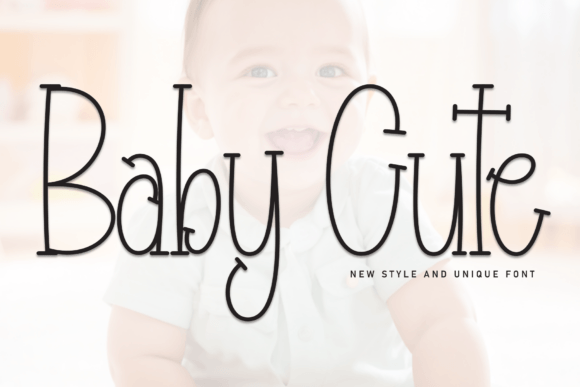
Meet the Font that Captivates Hearts: Baby Cute Font
Remember the first time you stumbled upon the perfect font for a design project? The excitement, the thrill, and the sense of accomplishment? It’s a moment that designers cherish, and we’re about to make it happen all over again with the introduction of Baby Cute Font.
This delightful handwritten display font is a masterful blend of cute and fun, perfect for adding a jubilant touch to your designs. Whether it’s a wedding invitation, a heartfelt card, or any other project that requires a playful twist, Baby Cute Font is sure to bring a smile to your audience’s faces. As a designer, you’ll appreciate the versatility and charm of this font, making it a valuable addition to your toolkit.
Get ready to unleash the creative potential of Baby Cute Font and take your designs to the next level!
Baby Cute Font Key Features
- Character Set: 200+ glyphs, including Latin, Cyrillic, and Greek alphabets, as well as various symbols and icons
- Unique Characteristics: Delicate, cursive lines and rounded shapes create a soft, endearing appearance, perfect for baby-related designs and branding
Designer Review: Baby Cute Font
First impressions matter, and Baby Cute Font is no exception. I was immediately drawn to its playful and whimsical style ✨. The font’s rounded edges and cursive flair make it perfect for projects that require a touch of innocence and charm. It’s ideal for branding, packaging, and other materials that cater to a younger audience.
The font’s versatility is another plus ✨. It comes in a variety of weights and styles, allowing designers to mix and match to achieve the desired look. I particularly appreciate the bold and italic versions, which add depth and emphasis to text.
While Baby Cute Font has its strengths, it’s not without its limitations ⚠️. For one, the font may come across as overly childish or immature in certain contexts. Additionally, the style can be quite busy, making it difficult to read in large blocks of text.
- May not be suitable for professional or formal projects
- Can be overwhelming in large quantities
- Limited legibility in certain font sizes
Overall, Baby Cute Font is a delightful addition to any designer’s toolkit ✨. While it may have its limitations, its unique style and versatility make it a great choice for the right projects.
The Baby Cute Font is perfect for:
- Designing children’s products and packaging.
- Creating invitations and party decorations.
- Adding a touch of whimsy to social media graphics.
Remember to use the font in moderation and pair it with simple, clean designs to avoid overwhelming the viewer.